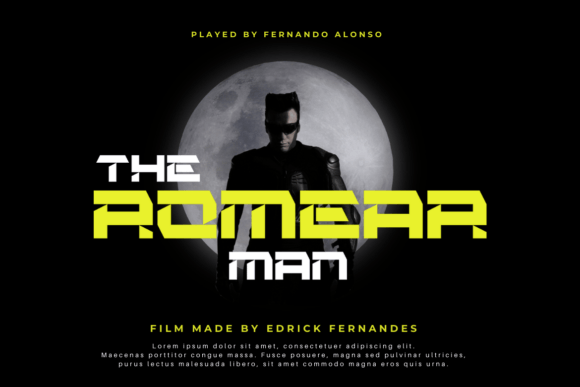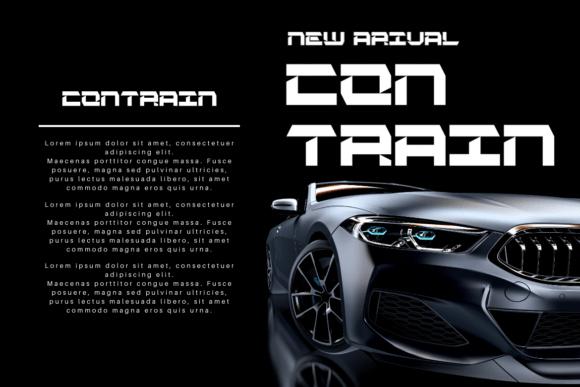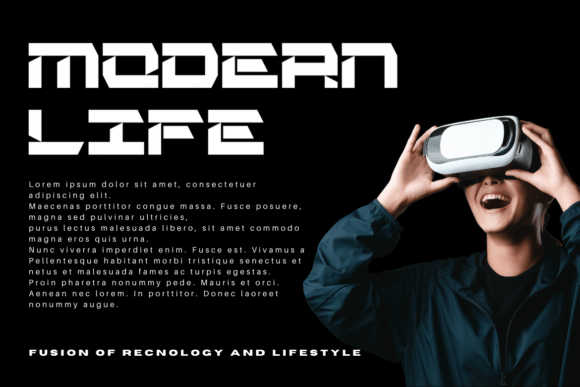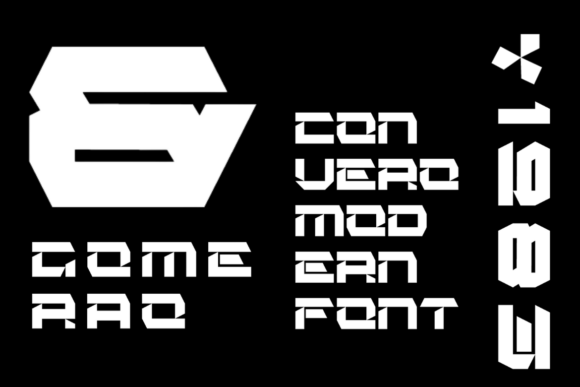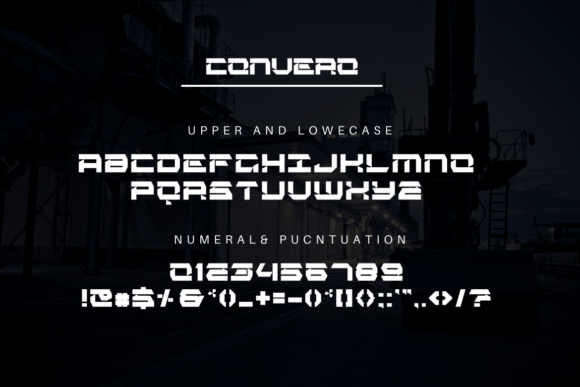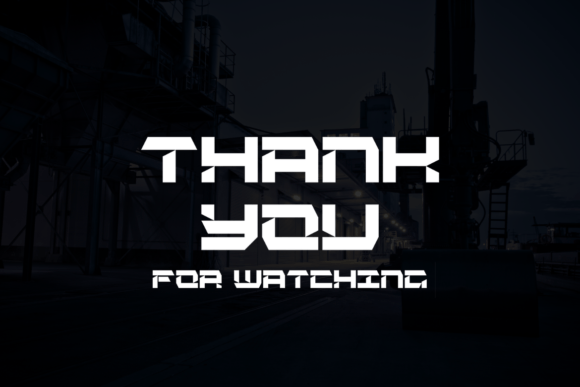
Introducing Convero Font: The Futuristic Typeface for Modern Designers
In the realm of typography, fonts play a crucial role in shaping the visual identity of a brand, product, or artwork. With the ever-evolving landscape of design, it’s essential to have a font that not only stands out but also resonates with the futuristic and technological advancements of our time. This is where Convero Font comes into play – a revolutionary typeface that embodies the essence of modern technology and minimalist design.
The Inspiration Behind Convero Font
Convero Font draws inspiration from the visual representations of technology that we see in logos, sci-fi movies, games, and contemporary gadgets. The designers aimed to capture the futuristic feel of these technological marvels and translate it into a unique and captivating typeface. The result is a font that exudes a sense of innovation, sophistication, and forward-thinking.
Design Characteristics of Convero Font
Convero Font boasts a minimalist style that is both sleek and modern. Its unique letterforms are carefully crafted to convey a sense of futurism, making it an ideal choice for designers who want to add a touch of cutting-edge technology to their work. The font’s clean lines, precise curves, and geometric shapes create a visually stunning effect that is sure to grab attention.
Versatility of Convero Font
One of the standout features of Convero Font is its versatility. This font is not limited to a specific medium or application; instead, it can be used across a wide range of design projects. Whether you’re working on logos, labels, posters, packaging, books, movies, presentations, games, or any other creative endeavor, Convero Font is an excellent choice. Its adaptability and flexibility make it a valuable asset for designers who want to experiment with different styles and formats.
Why Choose Convero Font?
So, what sets Convero Font apart from other fonts in the market? Here are a few compelling reasons why designers and crafters should consider adding Convero Font to their arsenal:
- Futuristic appeal: Convero Font’s unique design captures the essence of modern technology, making it perfect for projects that require a futuristic touch.
- Minimalist style: The font’s clean and minimalist design ensures that your work looks sleek, sophisticated, and visually appealing.
- Versatility: Convero Font can be used across a wide range of design projects, from logos and posters to books and games.
- Unique letterforms: The font’s distinctive letterforms add a touch of personality to your work, setting it apart from more traditional typefaces.
Using Convero Font in Your Design Projects
Convero Font is incredibly easy to use, even for designers who are new to working with unique typefaces. Here are a few tips to get you started:
- Pair it with contrasting fonts: Combine Convero Font with serif or script fonts to create a striking contrast that adds visual interest to your work.
- Experiment with different sizes: Convero Font looks great in various sizes, from large headings to smaller body text.
- Play with colors: The font’s sleek design looks stunning in bold, bright colors, but it also works well in more muted tones.
Convero Font is a game-changing typeface that is sure to revolutionize the world of design. Its unique blend of futuristic appeal, minimalist style, and versatility makes it an essential tool for designers and crafters who want to create stunning, cutting-edge work. Whether you’re working on a logo, poster, or book, Convero Font is the perfect choice for anyone looking to add a touch of modern technology to their design projects.